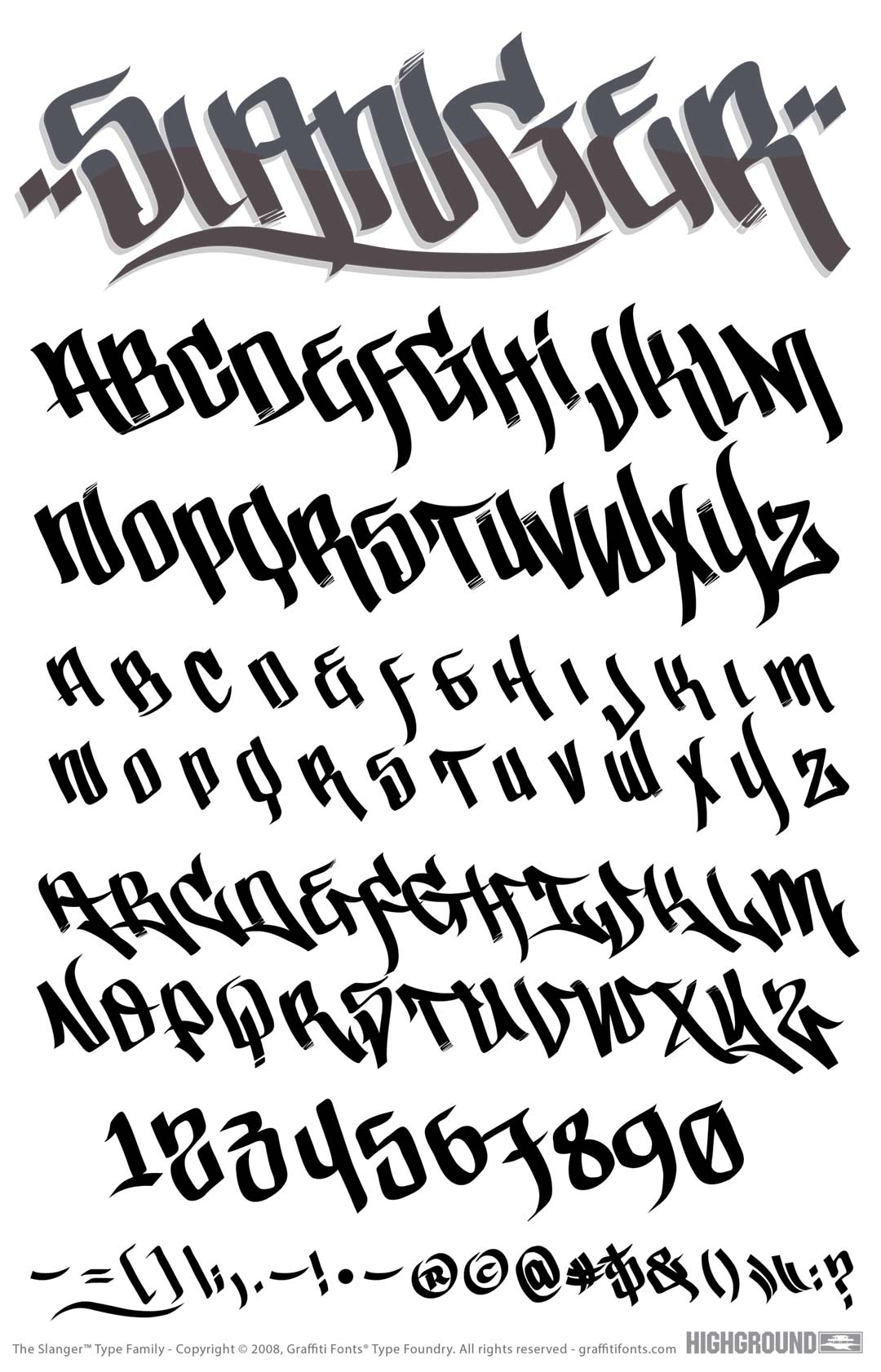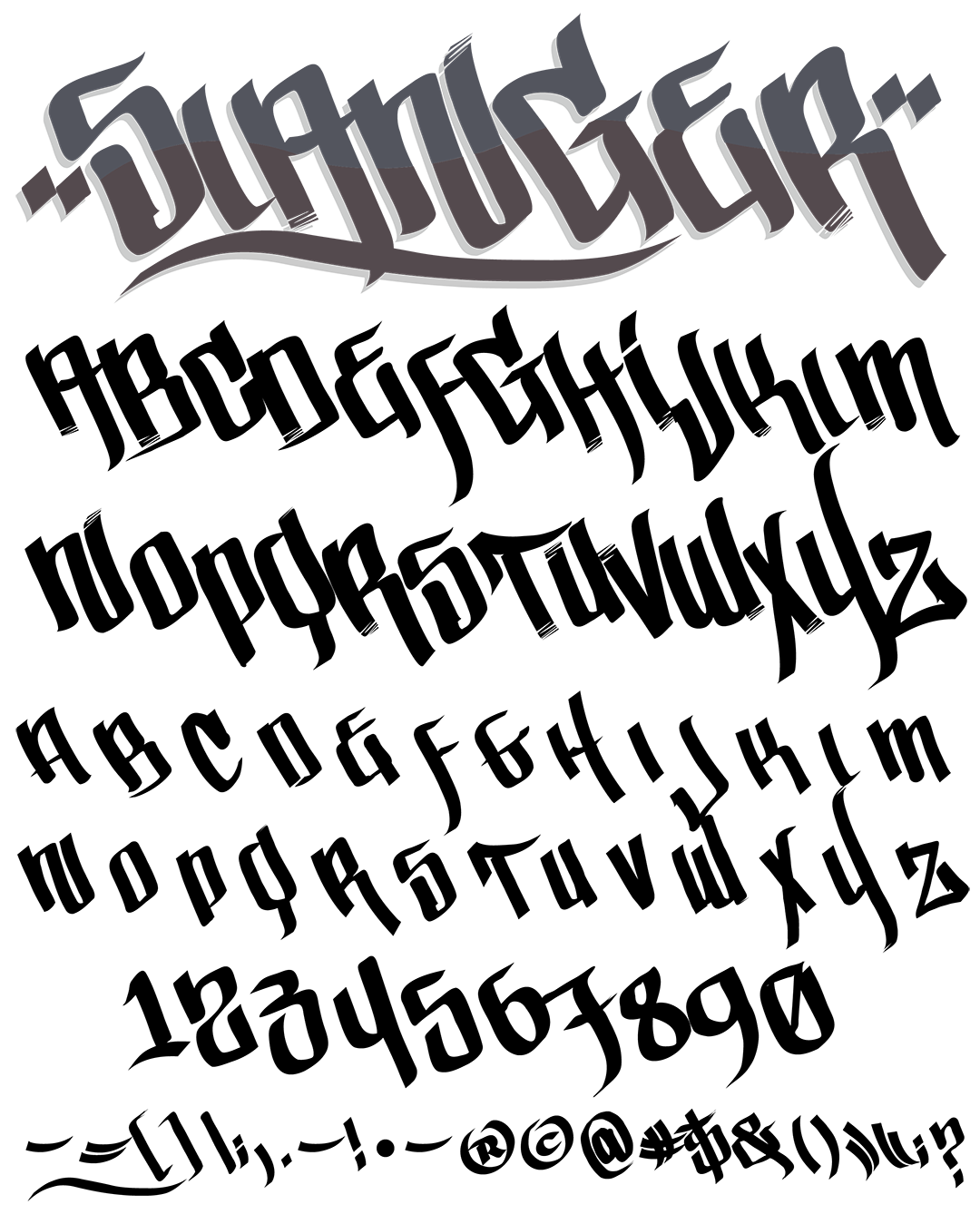
Slanger Font
Slanger Graffiti Alphabet
Slanger Graffiti Font Family
This simple and legible tag style graffiti typeface is modeled loosely after west coast gang writing with an old school Hip-Hop slant. The leaned back letters are rendered in a sharp chisel tip marker style with smooth lines & just enough irregularity to retain a hand written feel. This font also includes contextual alternates for the entire lowercase alphabet so each word that you type will include use a special ending character.